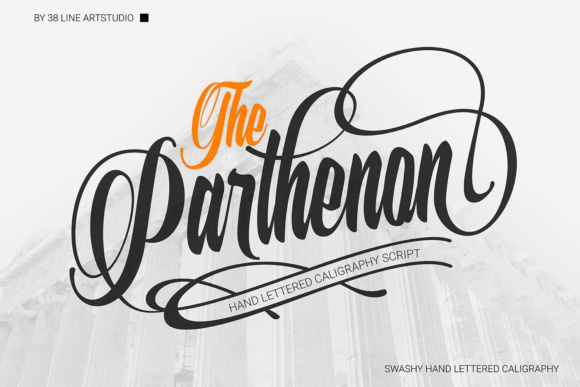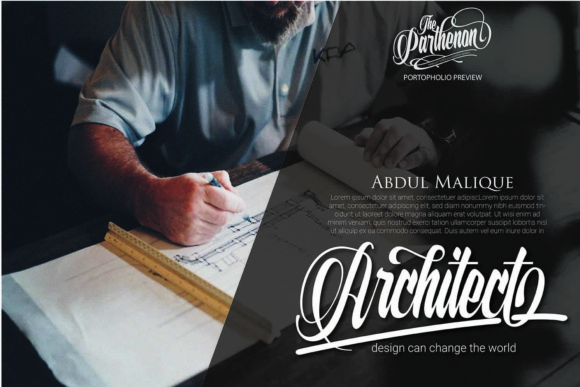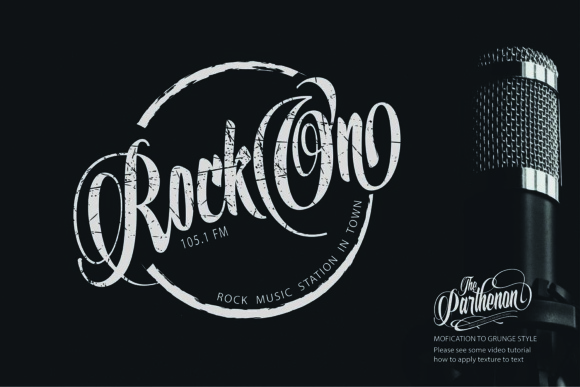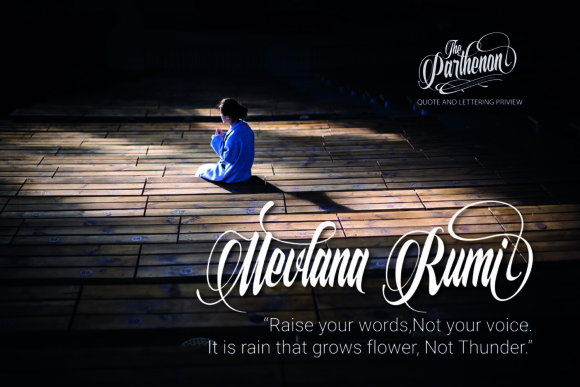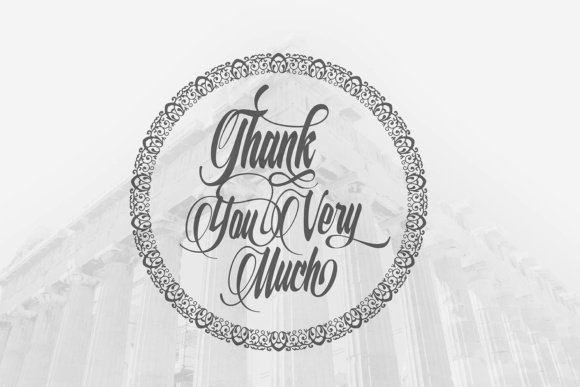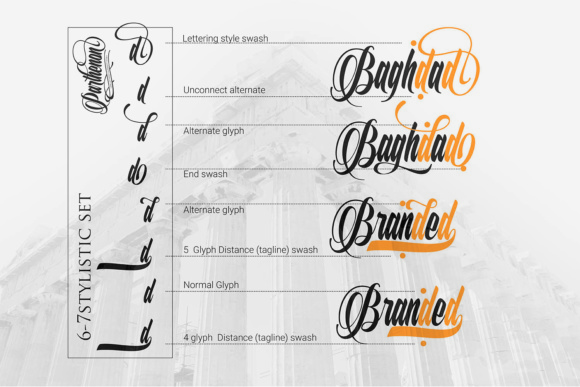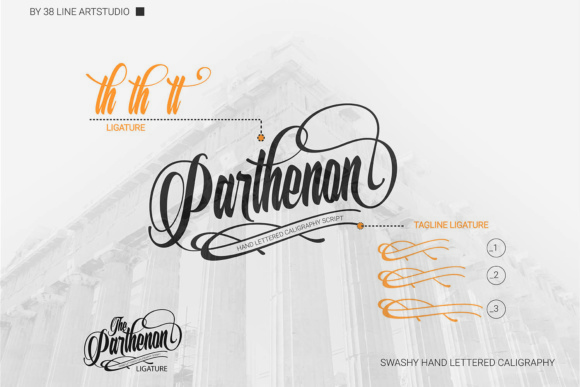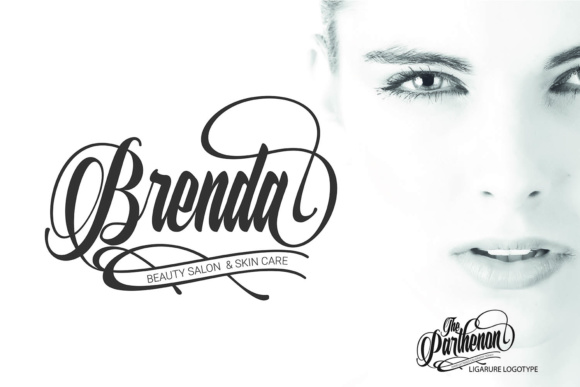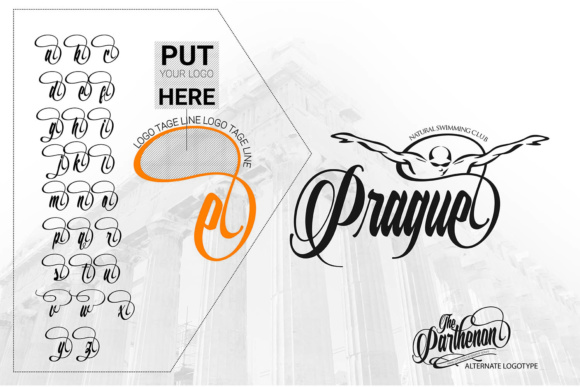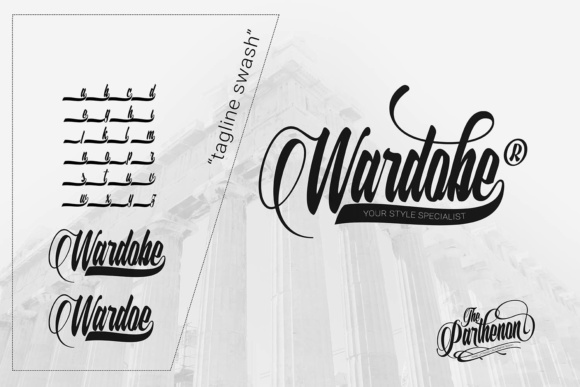
The Parthenon Font
About The Parthenon Font
The Parthenon is a calligraphy script with a lettering style. It includes 6 to 7 alternates which gives you the opportunity to create amazing lettering styles. Mix and match the alternates to create an unique, playful designs that tempt your eyesight from all points of view.